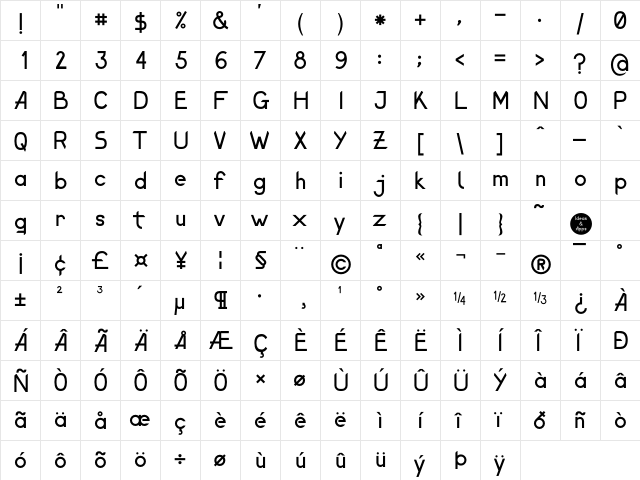
Elena Shine Regular
| Designer | Angel Garcia Rubio |
Design Context for Elena Shine Typeface
Elena Shine takes a measured approach to typography — its balanced proportions and neutral character make it a reliable workhorse for both digital and print work.